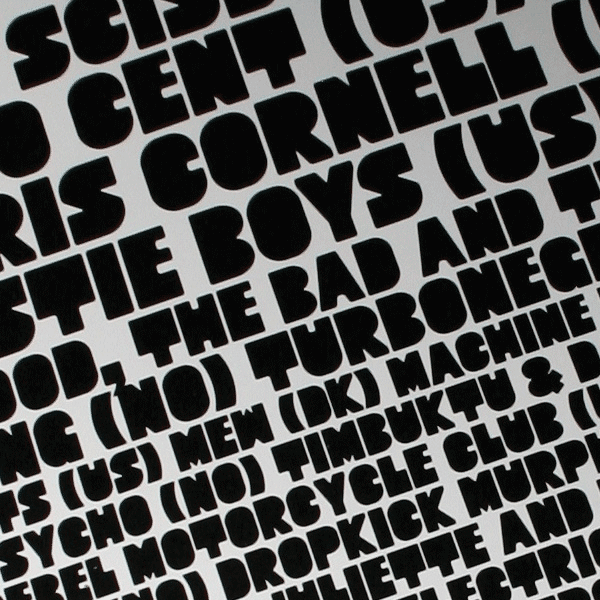
Designed in 2007 for the Quart Festival in Kristiansand, Norway. This is shareware, hence please share a sample screenshot of your publication if you apply this font in your work; we would love to see it (font@norwegianink.com). |